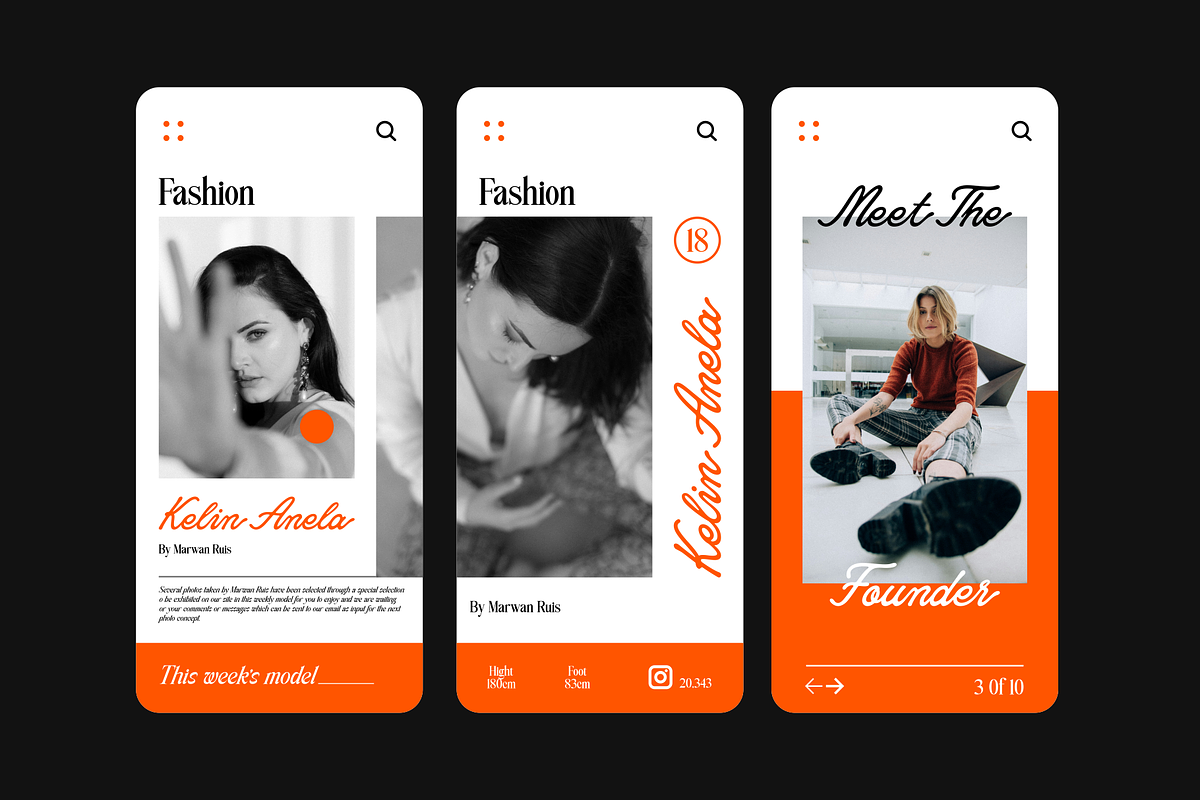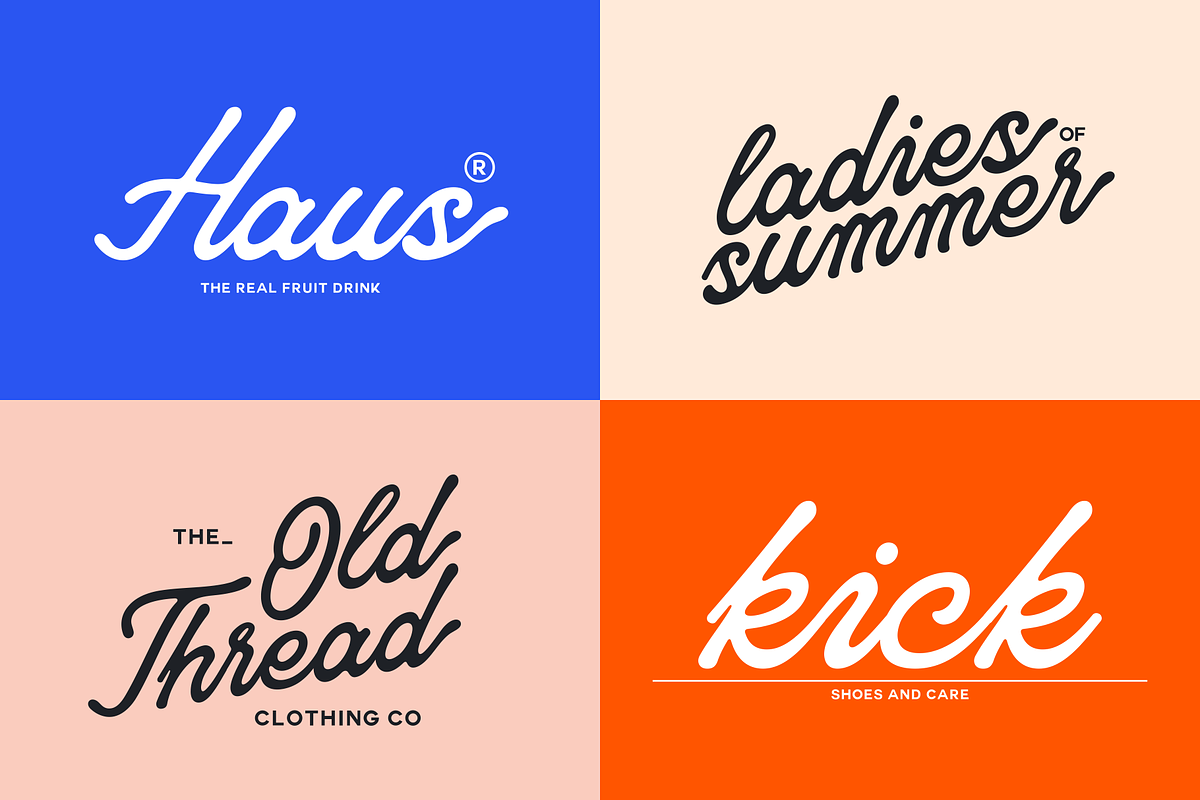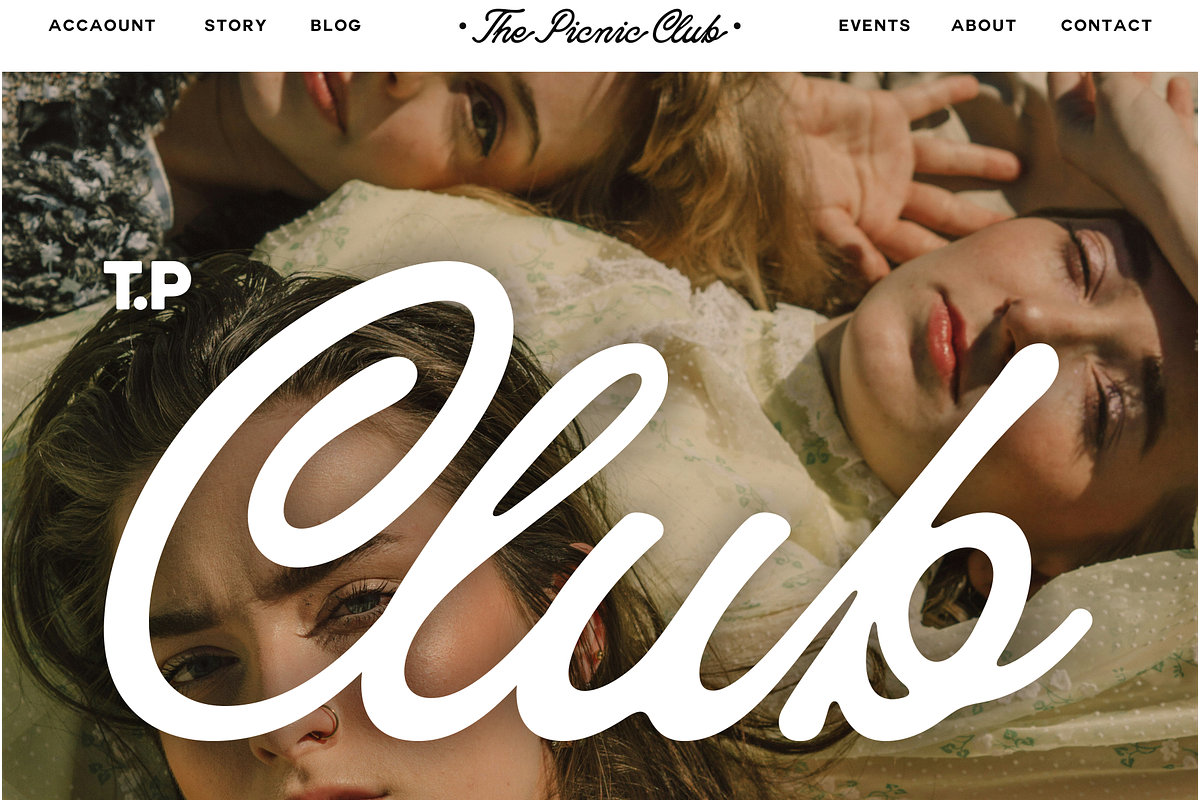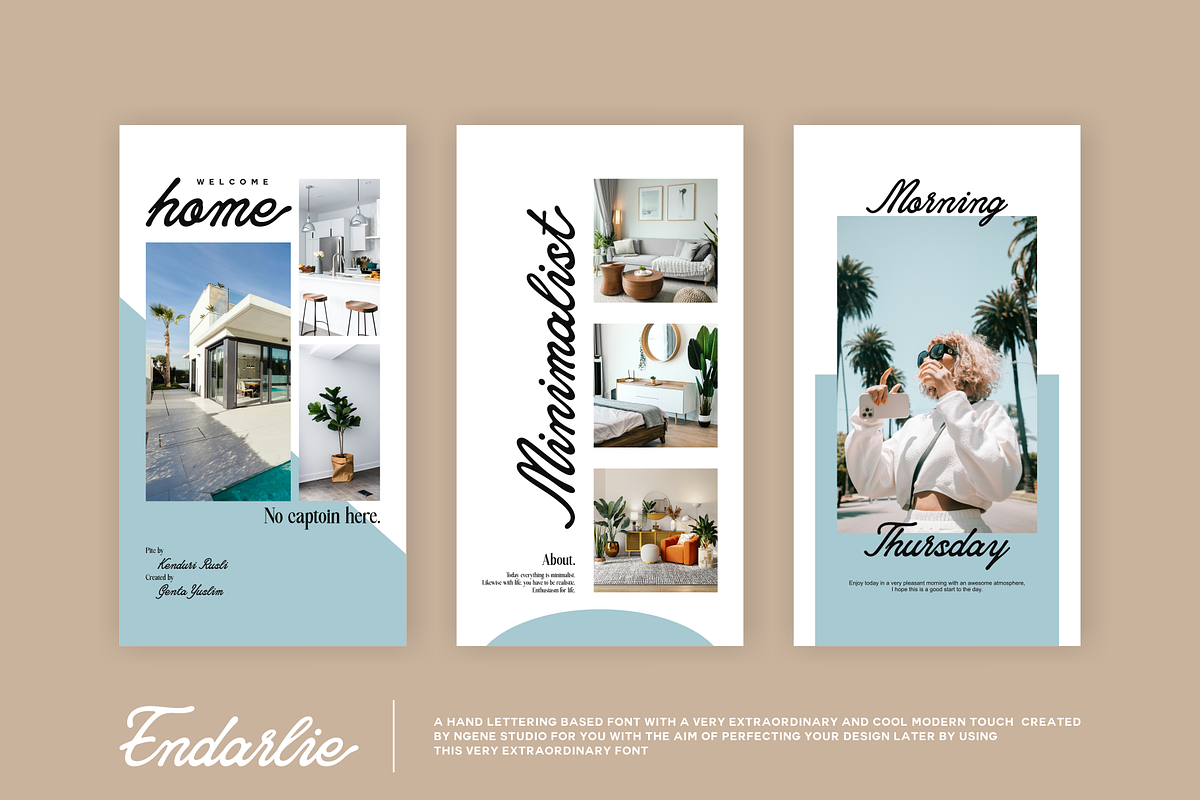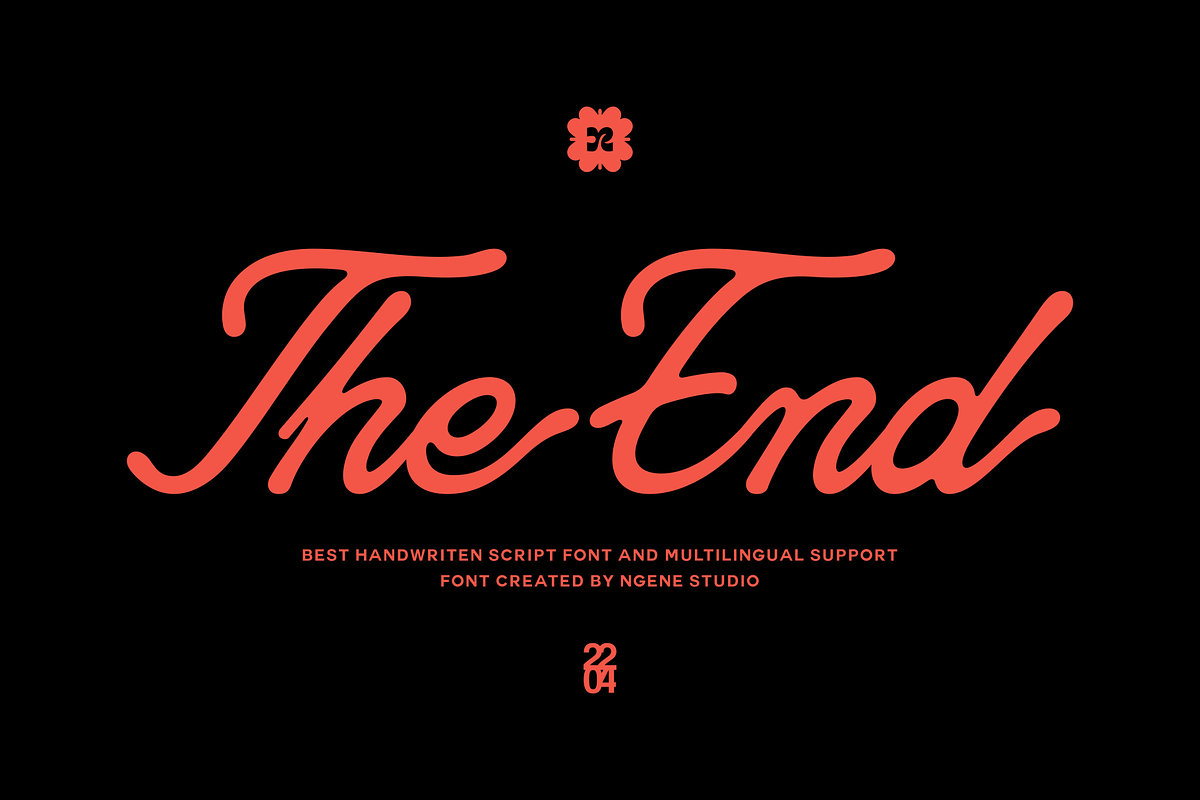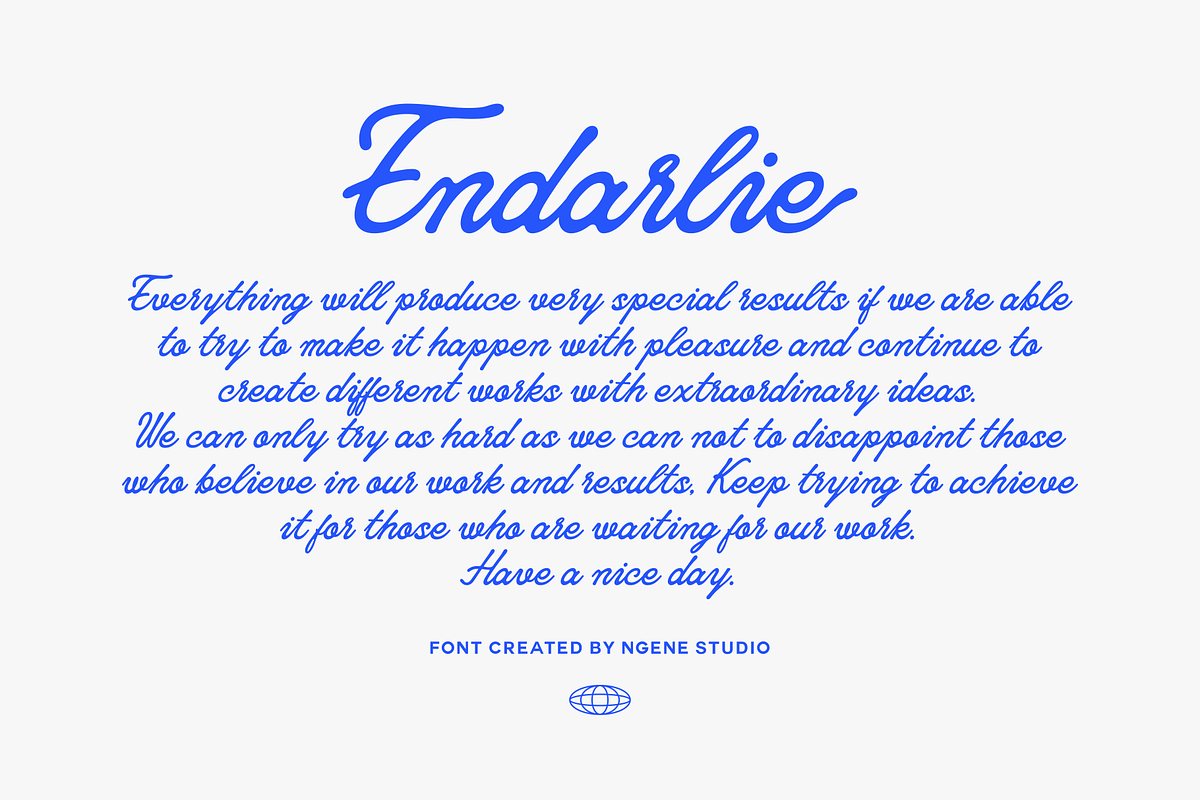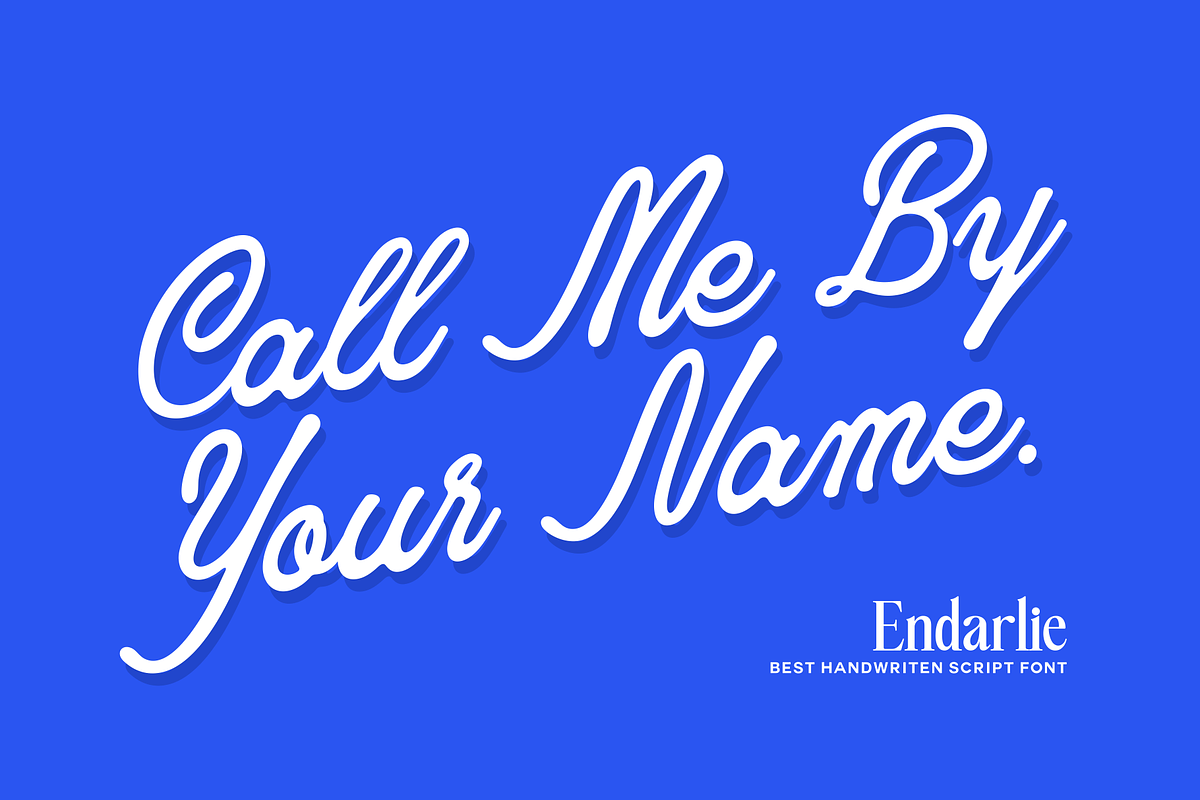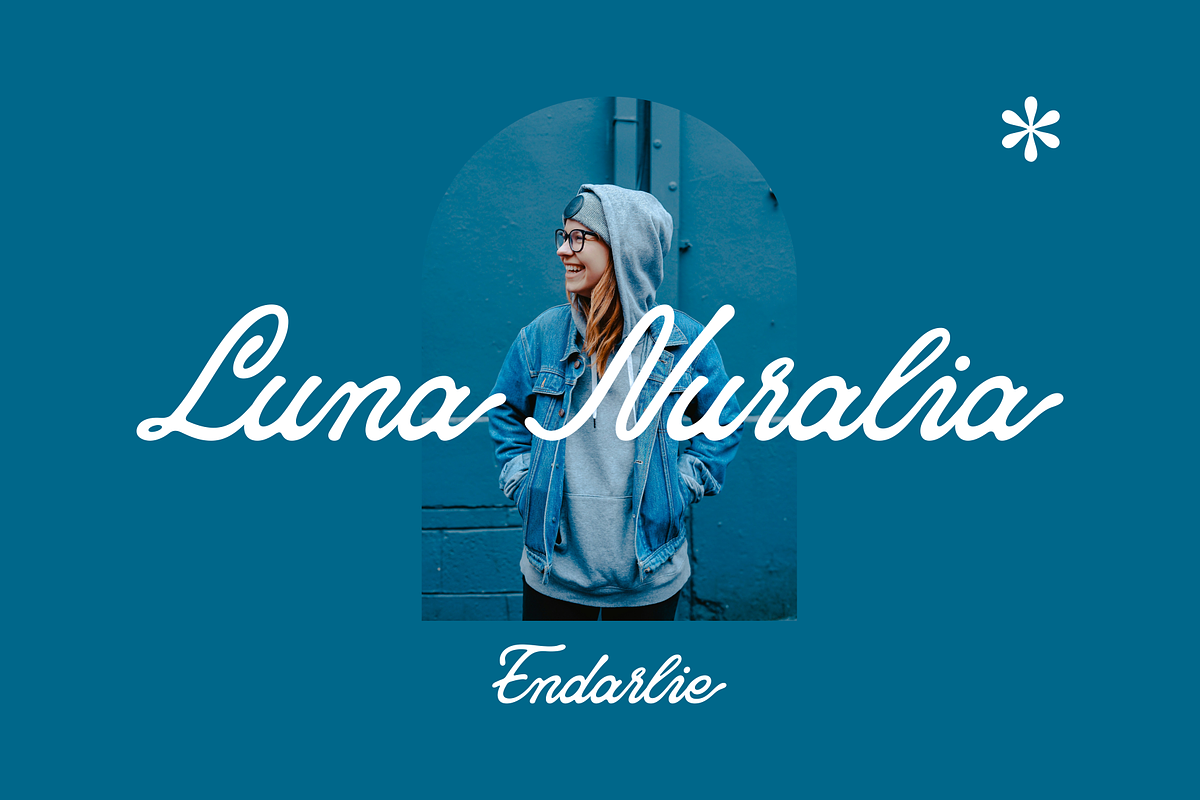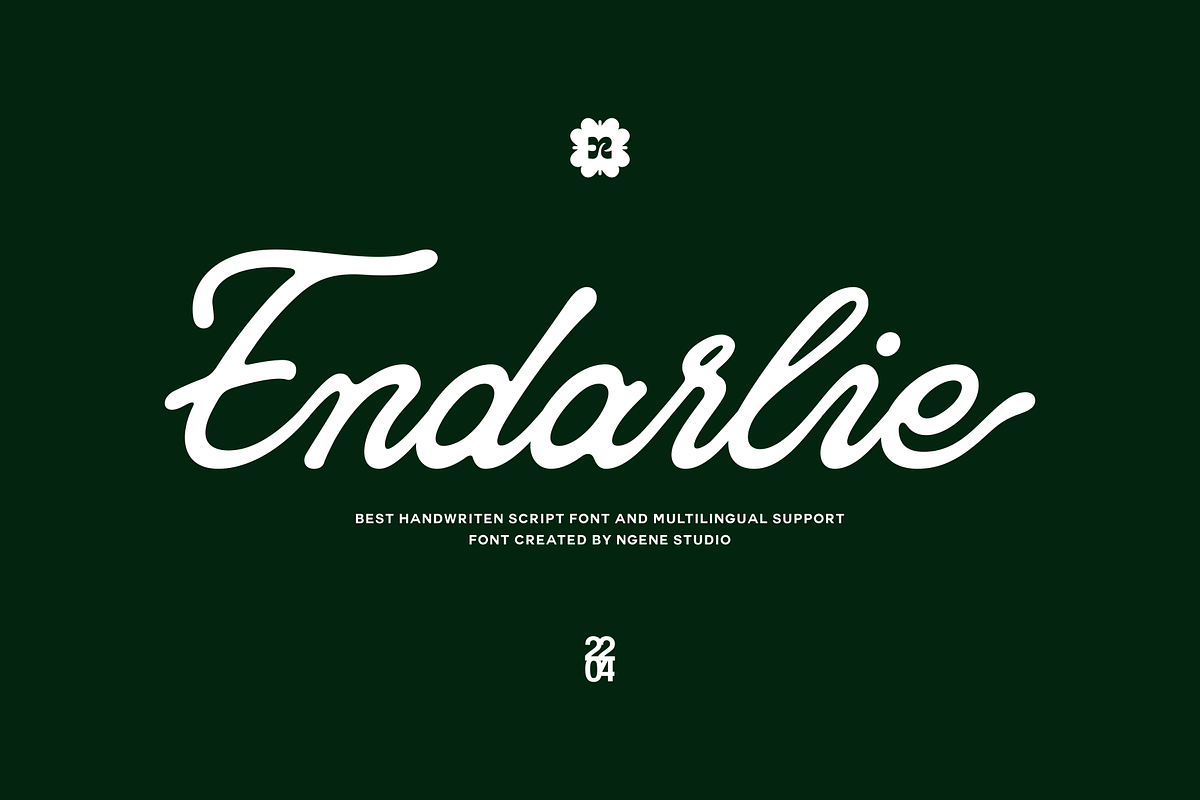
Endarlie
INTRODUCING
This Endarline comes with a modern and vintage touch in it. This font is great for your design projects such as logos, posters, invitation cards, packaging, badges, logotypes, clothing designs, labels and more.
This font has many alternative fonts in it, making it easier for you to beautify the writing you need. Endarline also supports multilingualism.